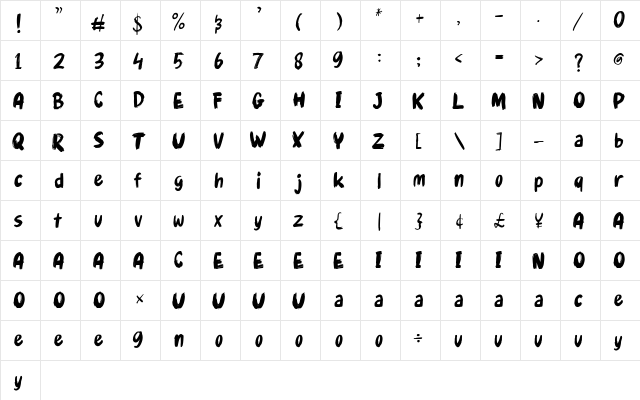
Gudnite Regular
| Foundry | Degi Kurniawan |
| Designer | Degi Kurniawan |
Design Context for Gudnite Typeface
Gudnite is a composed and adaptable typeface that performs quietly and consistently across a wide range of design contexts.